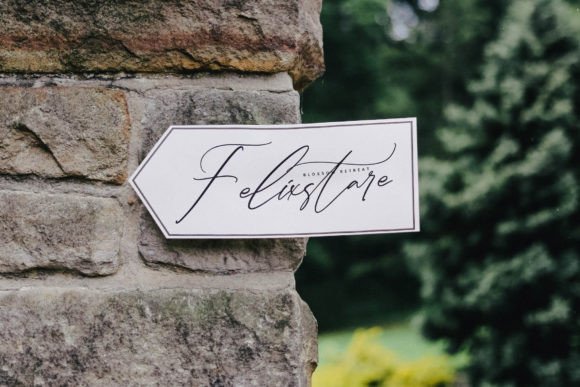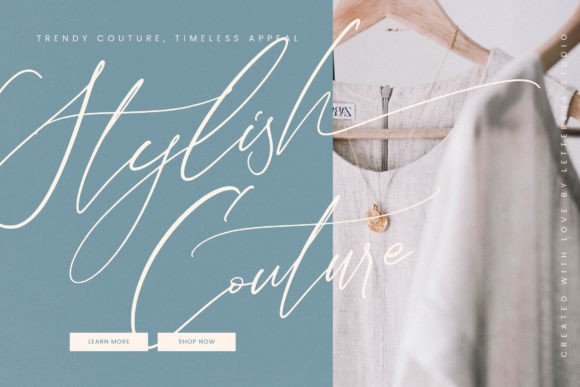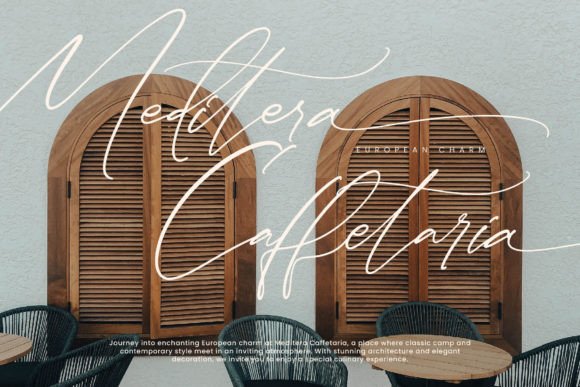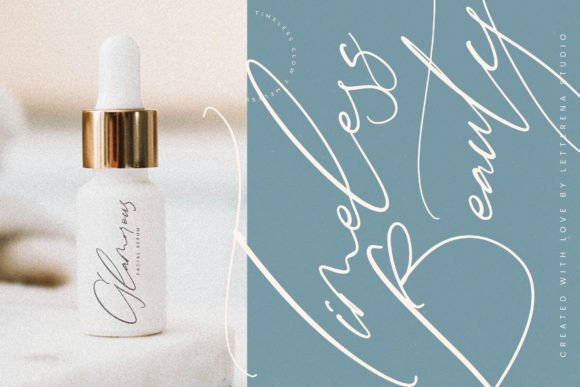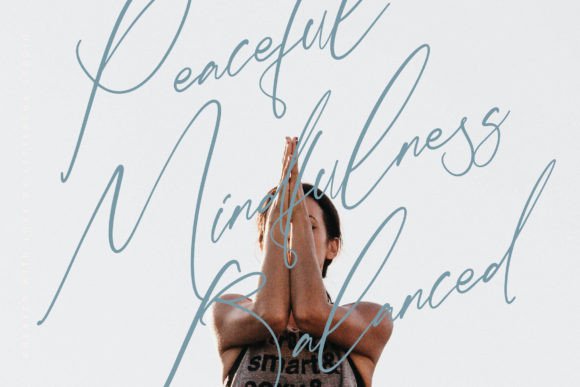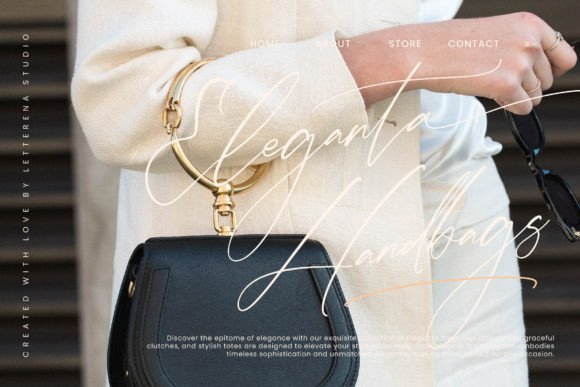
Discover the Elegance of Amsterdam Fieldstar Font
Are you a designer or crafter looking for a luxurious script font to elevate your projects? Look no further than the Amsterdam Fieldstar Font, a stunning script font from Letterena that exudes elegance and sophistication. In this article, we’ll dive into the features and benefits of this beautiful font and explore how it can be used to take your designs to the next level.
What is Amsterdam Fieldstar Font?
Amsterdam Fieldstar is a luxury script font designed by Letterena, a renowned font foundry. This beautiful script font is perfect for creating high-end designs that require a touch of elegance and refinement. With its flowing lines and intricate details, Amsterdam Fieldstar is sure to make your projects stand out from the crowd.
Key Features of Amsterdam Fieldstar Font
- Luxurious Script Style: Amsterdam Fieldstar boasts a luxurious script style that is perfect for creating high-end designs.
- Versatile: This font is suitable for a wide range of projects, including logos, branding projects, homeware designs, product packaging, and more.
- Elegant and Refined: Amsterdam Fieldstar features flowing lines and intricate details that give it an elegant and refined look.
- Easy to Read: Despite its ornate style, Amsterdam Fieldstar is easy to read, making it perfect for body text and headlines.
Use Cases for Amsterdam Fieldstar Font
Amsterdam Fieldstar is a versatile font that can be used for a wide range of projects, including:
- Logos and Branding: Create a luxurious brand identity with Amsterdam Fieldstar.
- Homeware Designs: Add a touch of elegance to your homeware designs, such as stationery, gift wrap, and textiles.
- Product Packaging: Elevate your product packaging with Amsterdam Fieldstar’s luxurious script style.
- Mugs and Apparel: Create beautiful mugs, t-shirts, and other apparel with Amsterdam Fieldstar.
- Posters and Quotes: Use Amsterdam Fieldstar to create stunning posters and quotes that make a statement.
Why Choose Amsterdam Fieldstar Font?
So, why should you choose Amsterdam Fieldstar for your next project? Here are just a few reasons:
- Unique and Exclusive: Amsterdam Fieldstar is a unique and exclusive font that will set your designs apart from the crowd.
- High-Quality: This font is designed with high-quality in mind, ensuring that it looks great in any size or resolution.
- Luxurious Aesthetic: This font features a luxurious aesthetic that is perfect for high-end designs.
Tips for Using Amsterdam Fieldstar Font
Here are a few tips for getting the most out of Amsterdam Fieldstar:
- Use it Sparingly: Amsterdam Fieldstar is a luxurious font, so use it sparingly to create maximum impact.
- Pair it with a Sans Serif: Pair Amsterdam Fieldstar with a sans serif font for a beautiful contrast.
- Experiment with Sizes: Experiment with different sizes to find the perfect balance for your design.
In conclusion, Amsterdam Fieldstar Font is a stunning script font that is perfect for designers and crafters looking to create luxurious and elegant designs. With its flowing lines, intricate details, and versatile nature, this font is sure to take your projects to the next level. Whether you’re creating logos, branding projects, homeware designs, or product packaging, Amsterdam Fieldstar is the perfect choice.